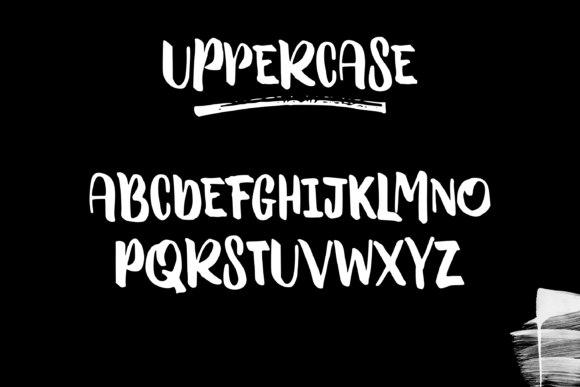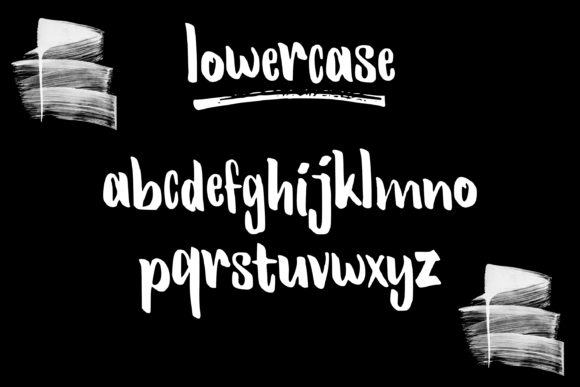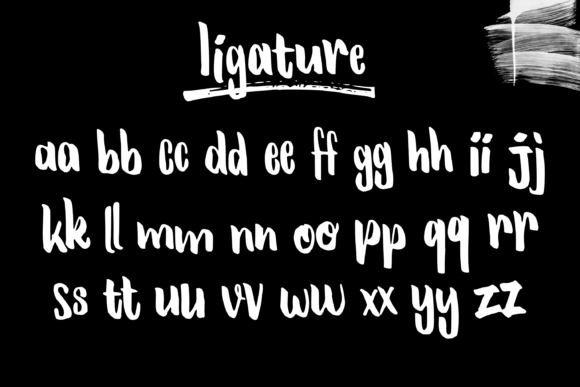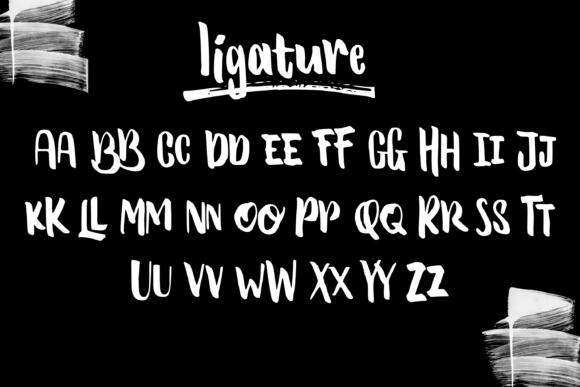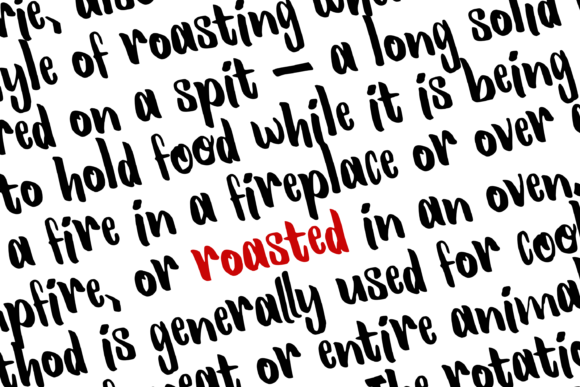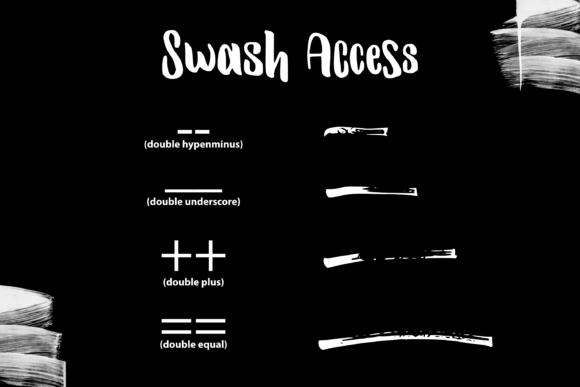
Introduction to Rotisseria Font Font
Fonts play a crucial role in design, and the Rotisseria Font font is a typeface that brings both character and versatility to any project. Whether you’re working on a branding project, a website, or a print design, the Rotisseria Font font offers a unique style that can elevate your work.
Rotisseria is a natural dry brushed script font.
It can be used for posters, graphic designs, quotes, greeting cards, logos, and every other design which needs a rough look This font is PUA encoded which means you can access all of the glyphs and swashes with ease.
Key Features of Rotisseria Font Font
Why Choose Rotisseria Font Font?
The Rotisseria Font font is more than just a typeface – it’s a design tool that helps you communicate your message with style and clarity. Its unique character set and versatile design make it suitable for a wide range of applications, from elegant invitations to bold headlines.
With its carefully crafted letterforms and balanced proportions, the Rotisseria Font font ensures readability and visual appeal across all mediums.
What makes Rotisseria Font font special?
The Rotisseria Font font stands out with its unique design, exceptional readability, and versatility across various design applications.